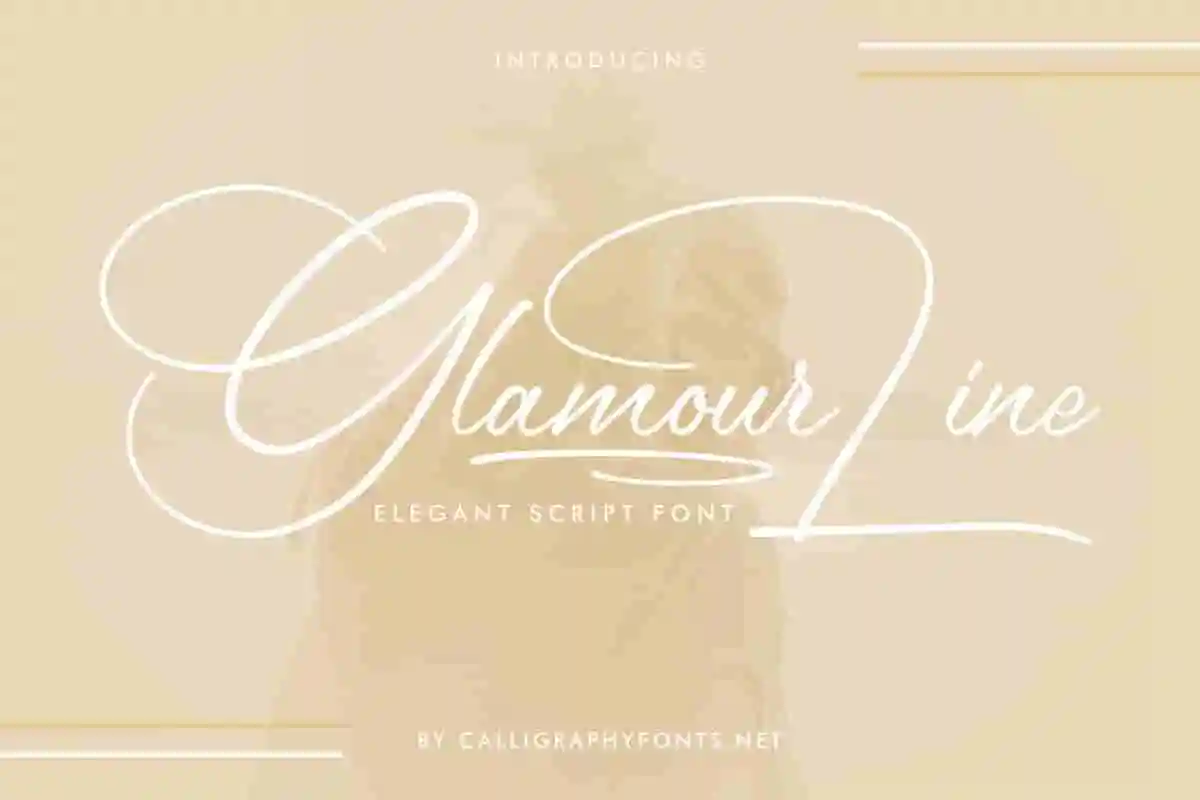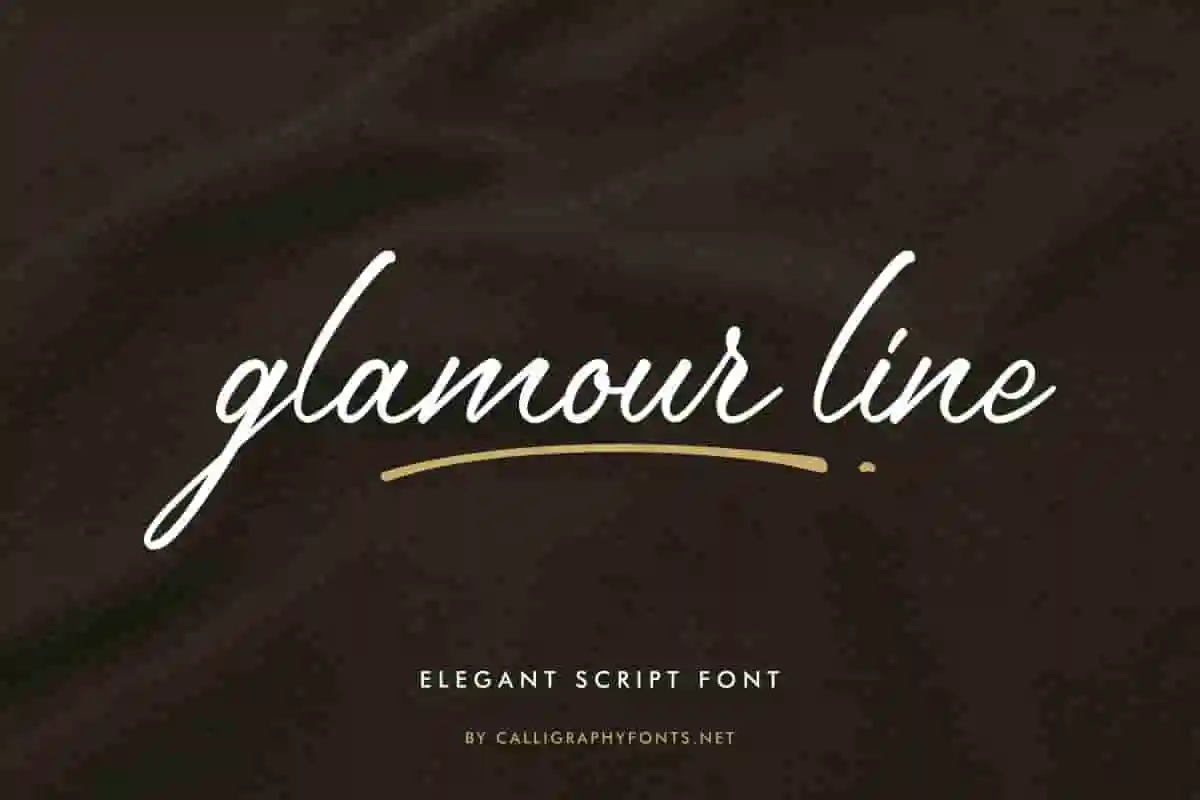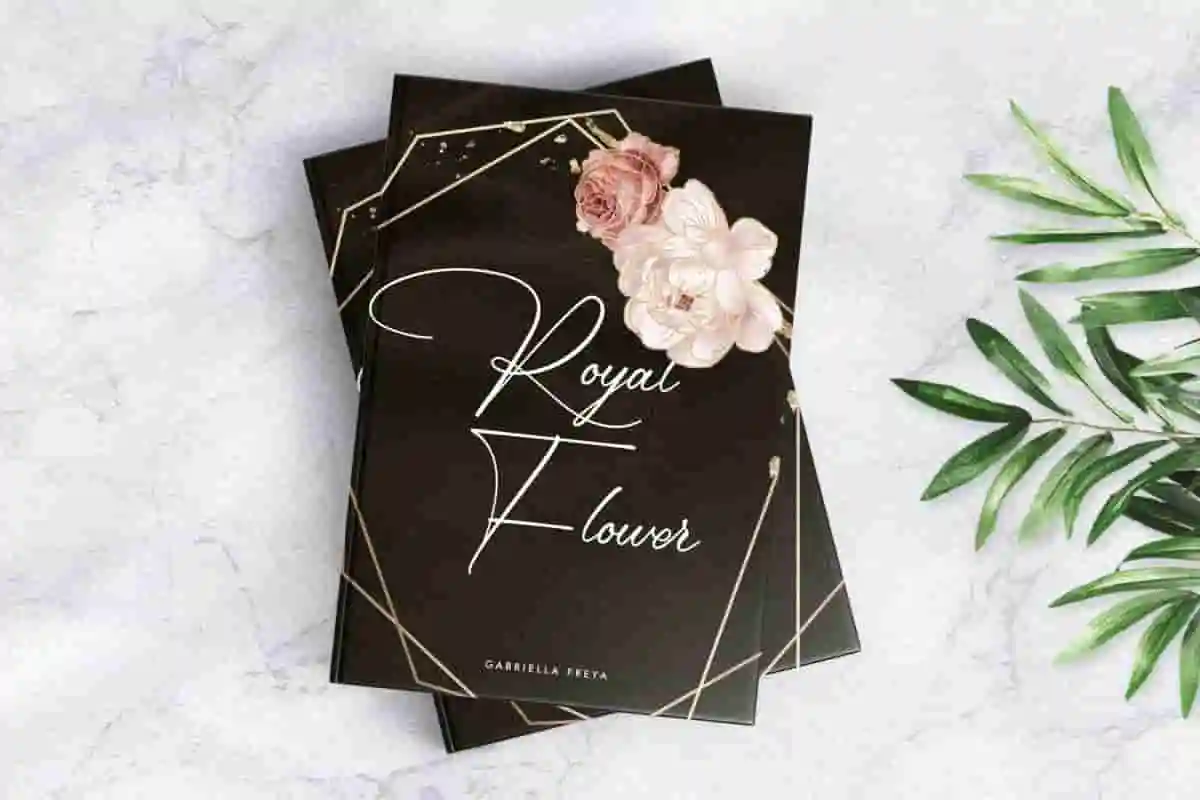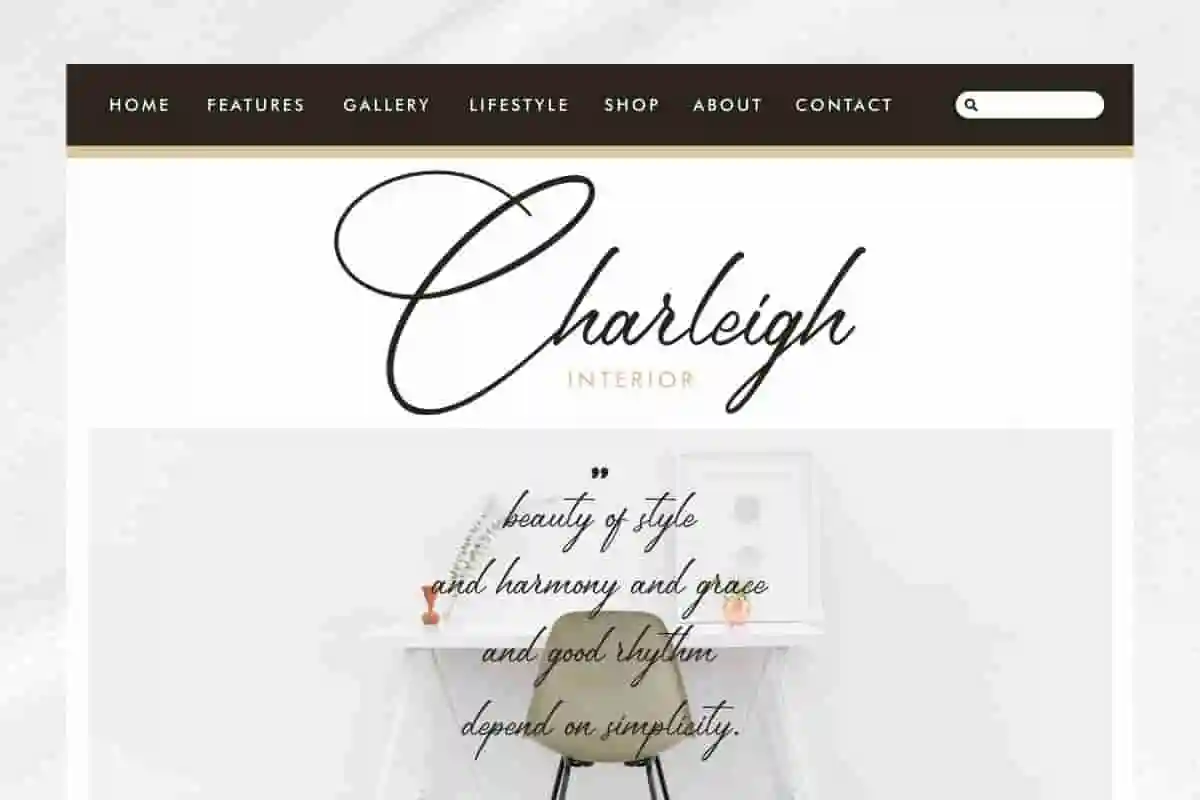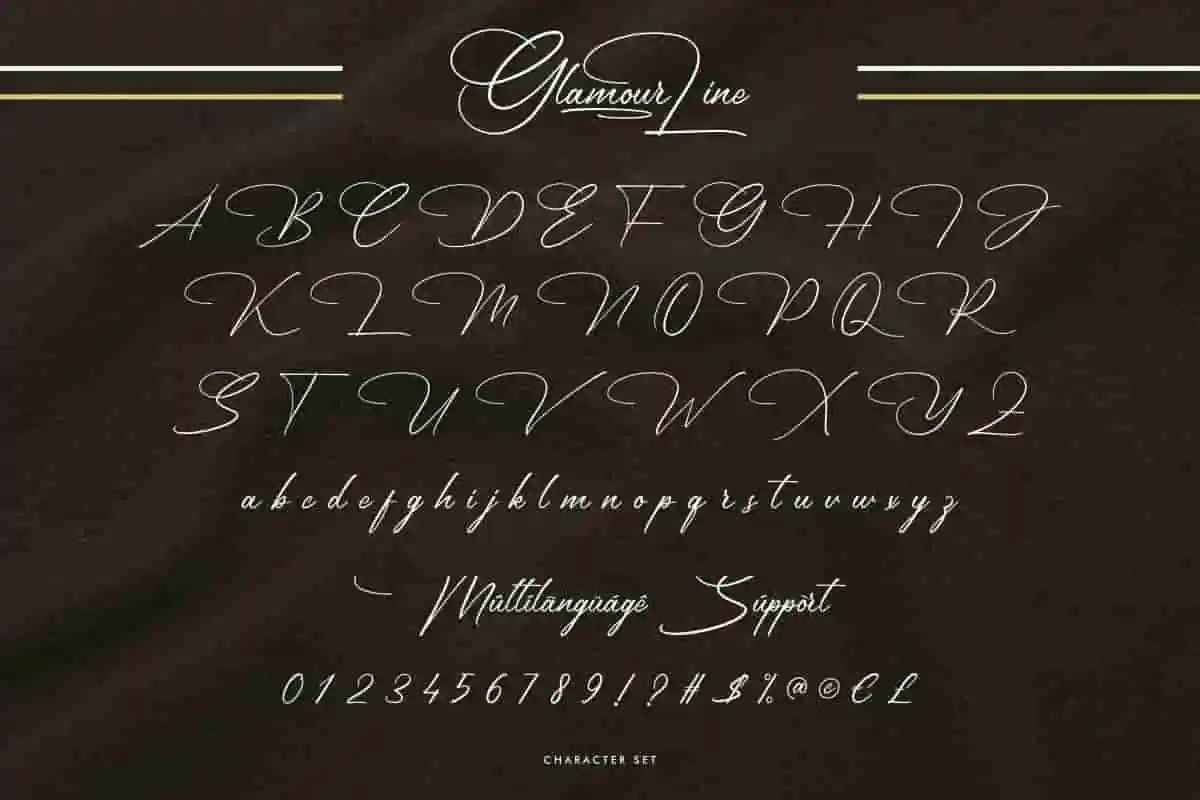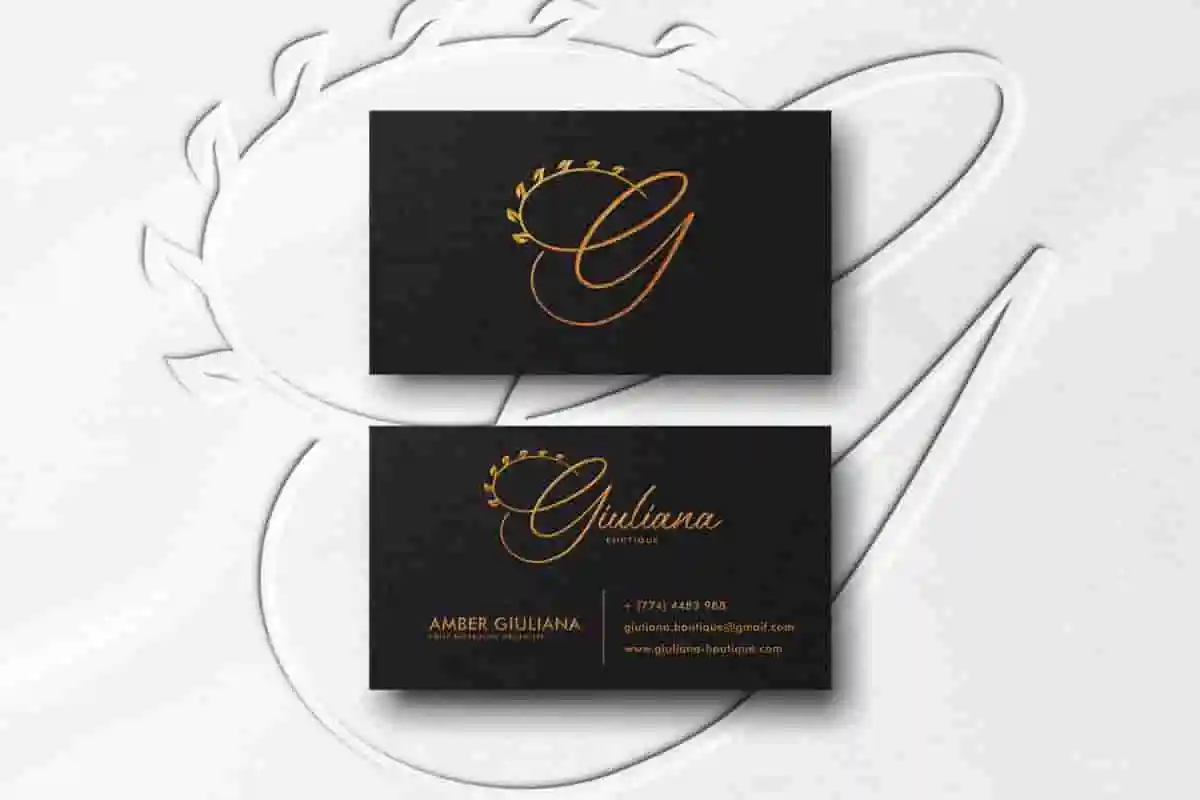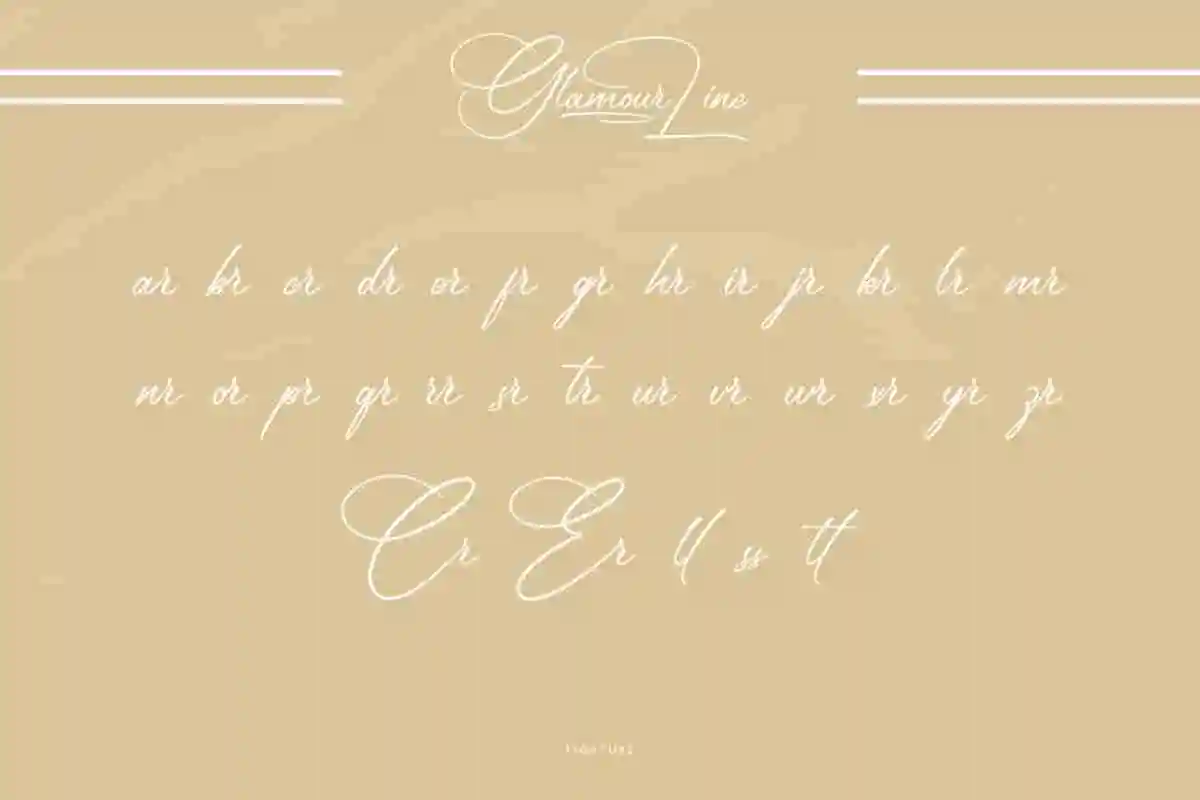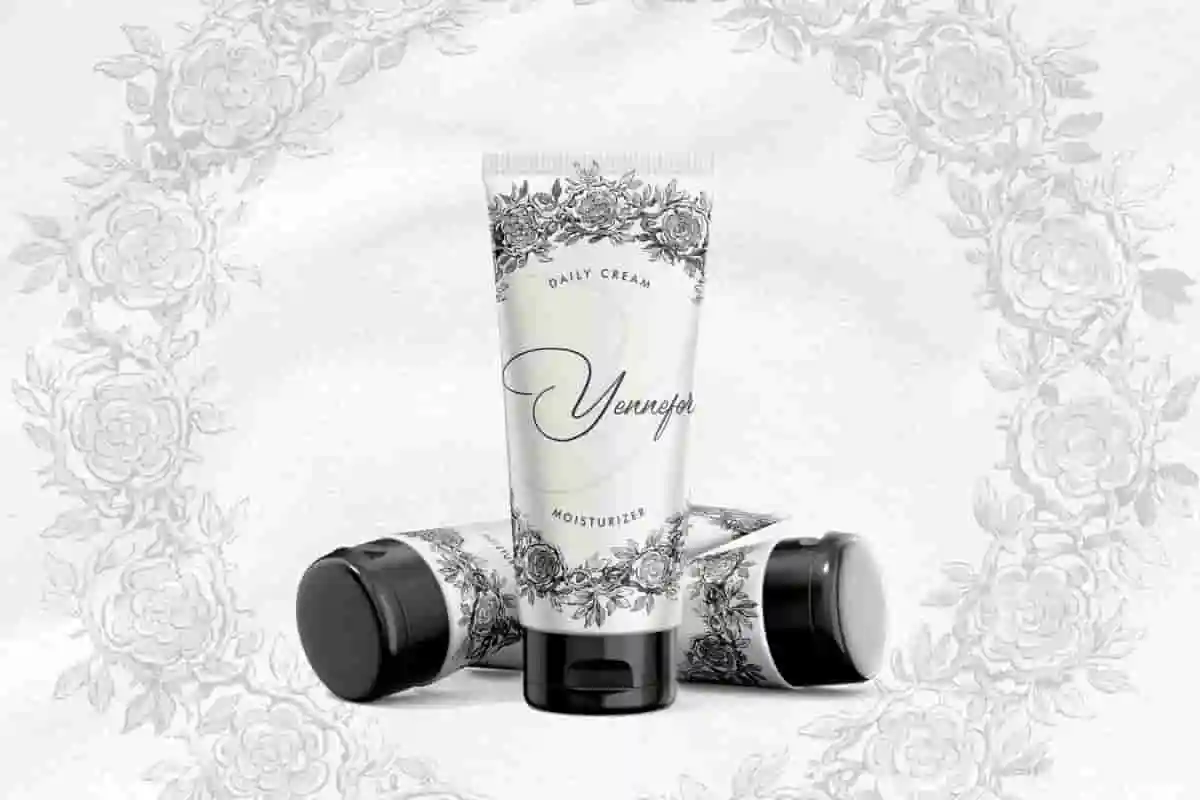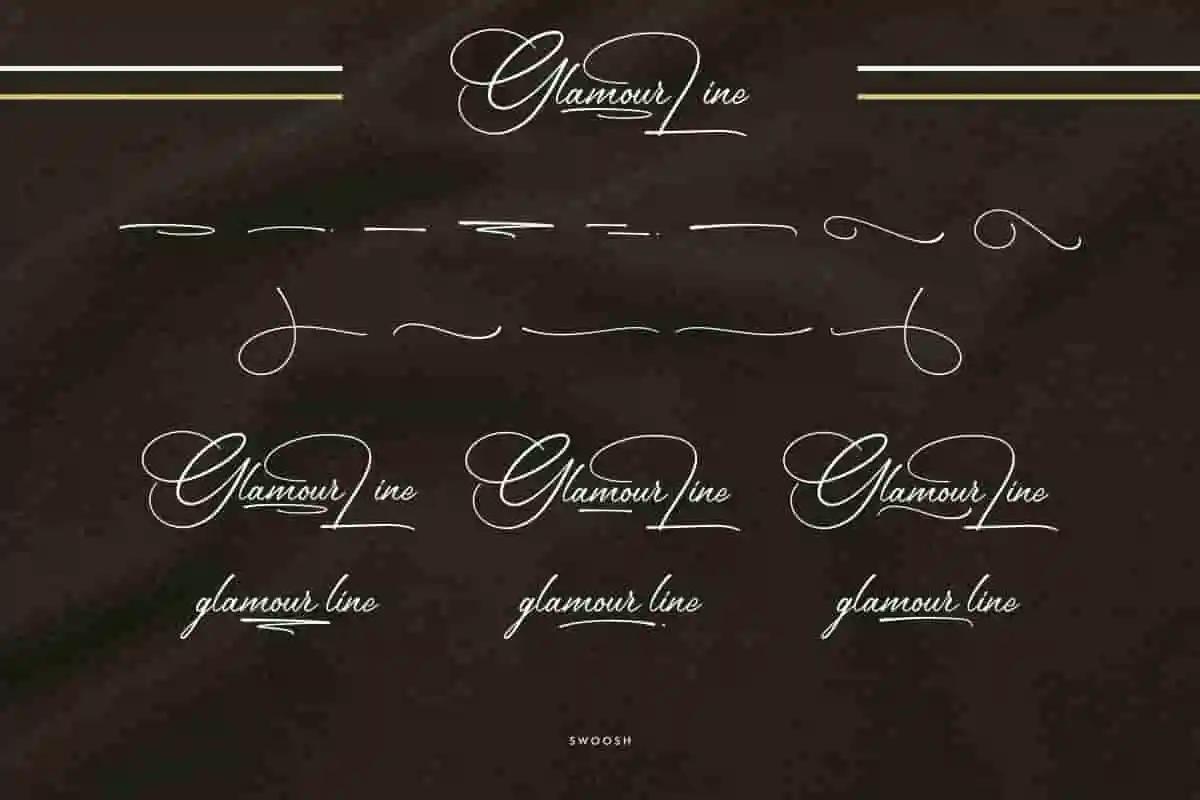
Glamour Line Handwriting Font
Glamour Line Font is an elegant beautiful handwriting font by CalligraphyFonts.net. It has great characters that will be awesome for signature, logotype, invitation, flyer etc
Glamour Line is a beautiful, classic stylish Handwriting font. It has unique looks that are beautiful, exclusive, elegant, luxury, lettering, old school, vintage and sophisticated brush font.